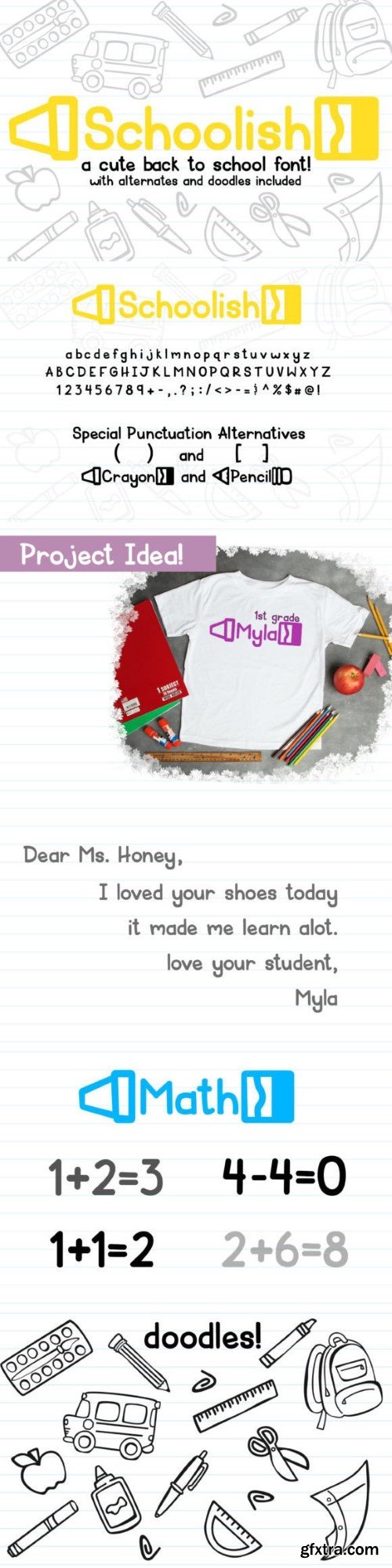
.schoolish font
Schoolish is a display font that is uniquely designed and fun. This font is suited for kids or school themes. Whether you’re using it for crafting, playful restaurant menus, digital designing, presentations, or greeting card making, it’s perfect! It can easily be matched to an incredibly large set of projects, so add it to your creative ideas and notice how it makes them stand out!